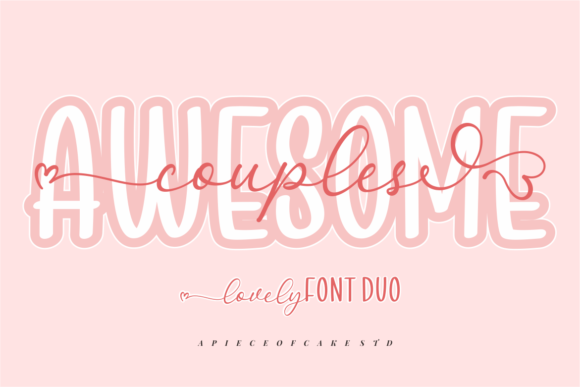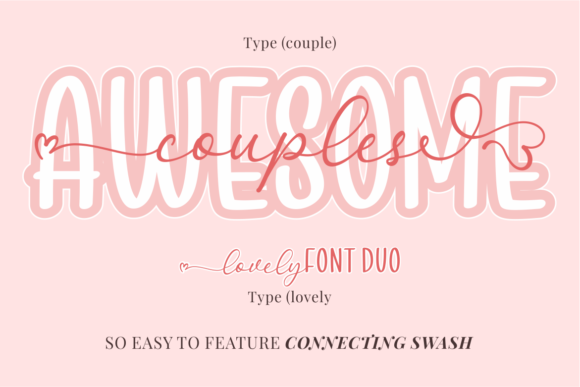
About Awesome Couples Font
Awesome Couples is a stylish and delicate handwritten duo font suitable for a wide spectrum of applications. From greeting cards to headlines, add this spectacular font to any of your creative projects, and it will guarantee them a romantic touch!